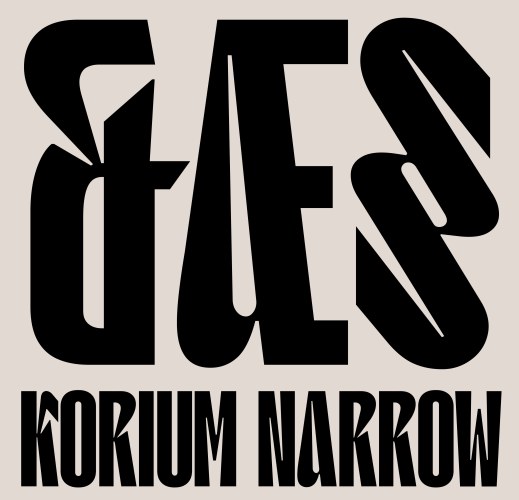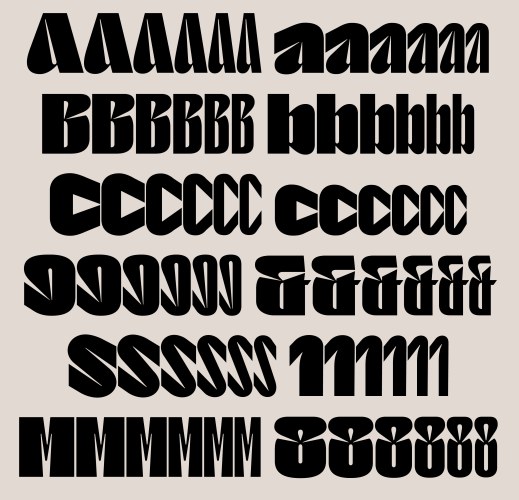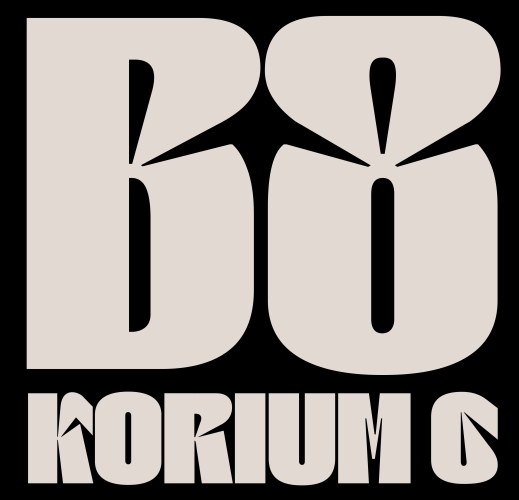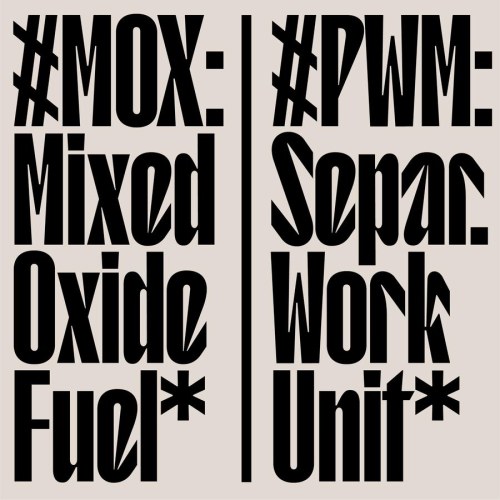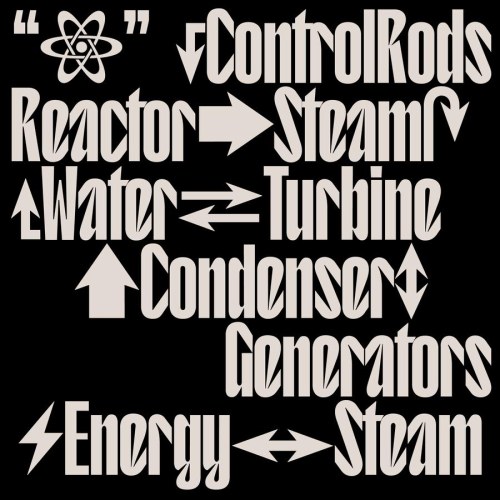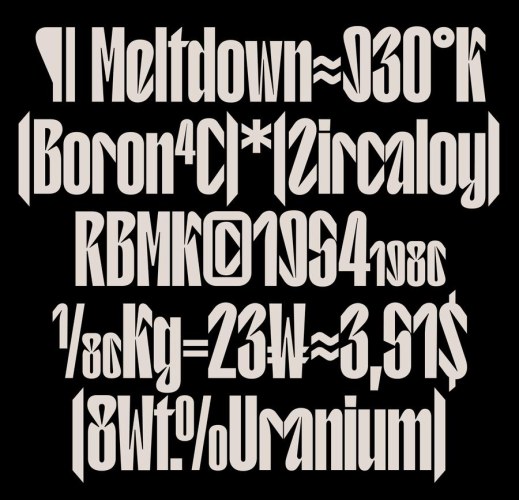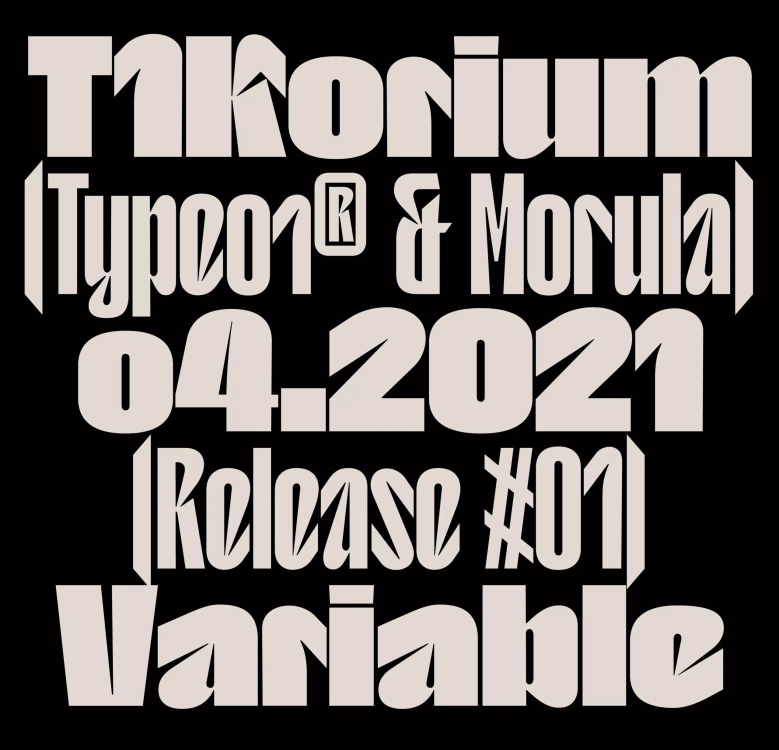
T1 Korium Font Fsmily
We’re proud to introduce Korium, the first-ever variable font released by TYPE01, created in collaboration with typeface designer Valerio Monopoli. Korium’s typeface includes humanist-touched glyphs, whilst its juicily condensed forms are soft on the outside and sharp on the inside—a contemporary sans with angular shapes and a badass attitude.
T1 Korium Font Fsmily is a Display Fonts font that brings a professional and versatile look to your projects. We’re proud to introduce Korium, the first-ever variable font released by TYPE01, created in collaboration with typeface designer Valerio Monopoli.